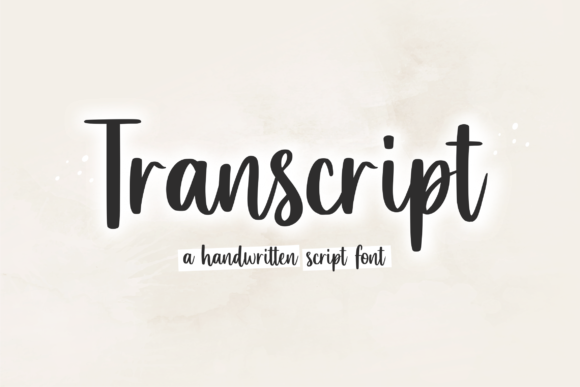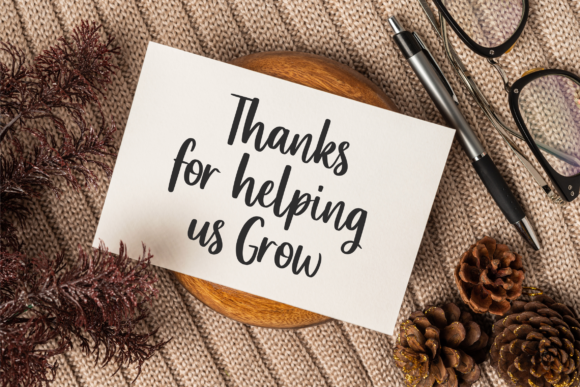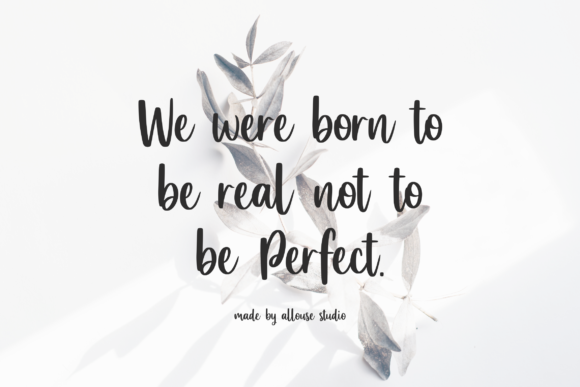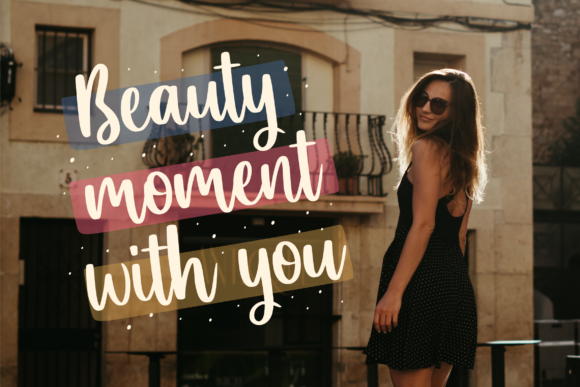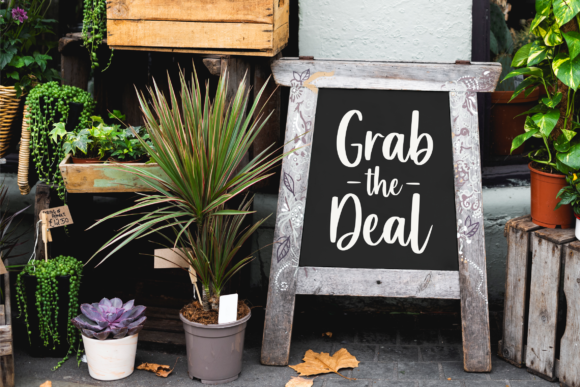
About Transcript Font
Transcript is a chic script font. It is perfect for product packaging, branding project, magazine covers, social media, wedding, or just used to express words above the background.